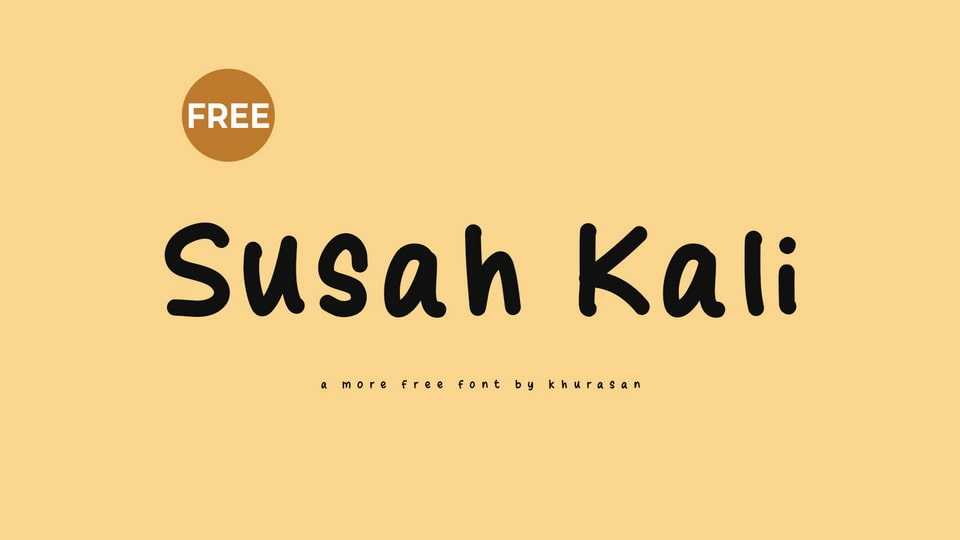
Download Susah Kali font, a simple and natural hand-drawn comic typeface that captures the essence of playful creativity. It features relaxed, freeform letterforms with organic curves and charming imperfections.